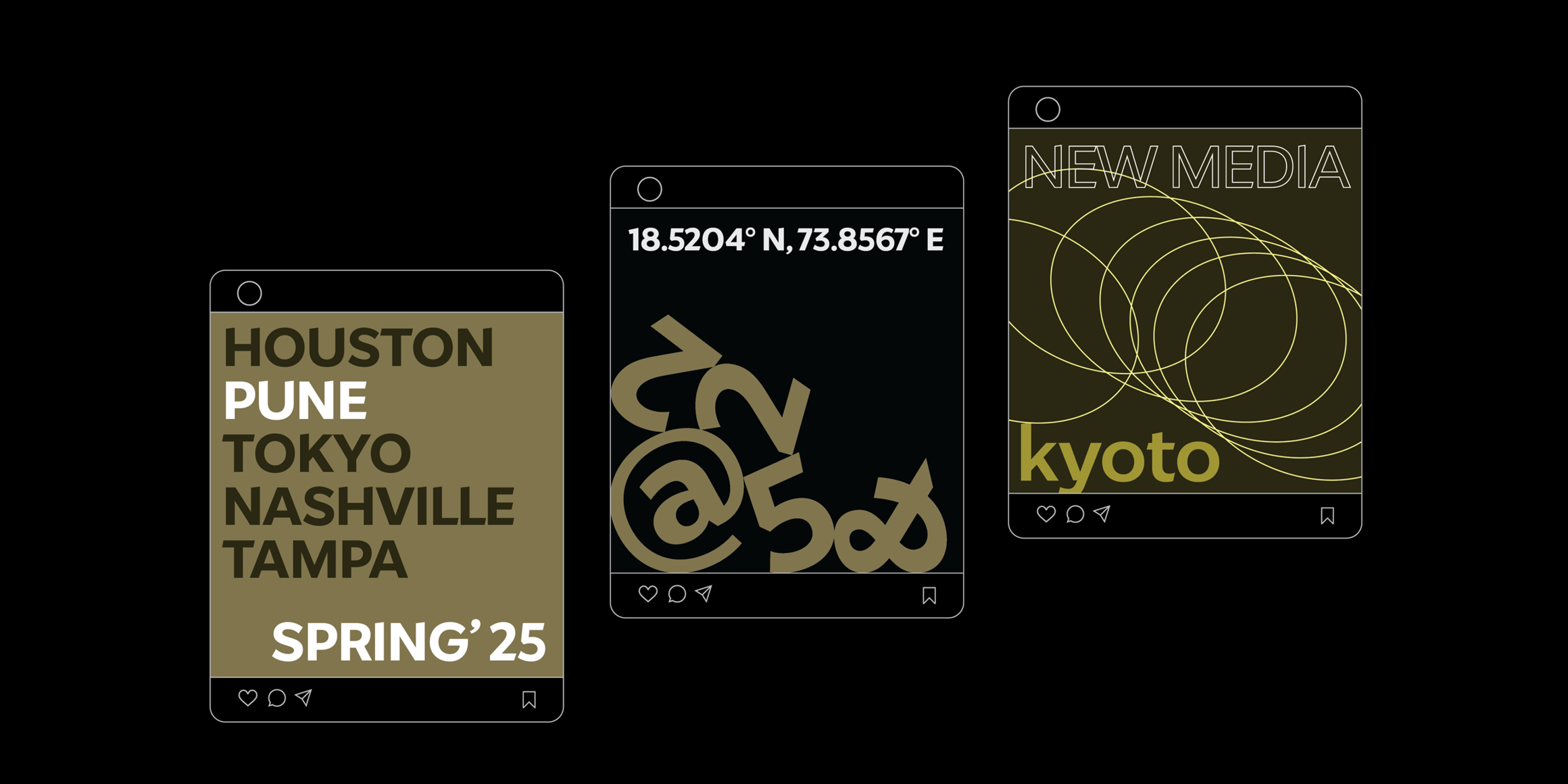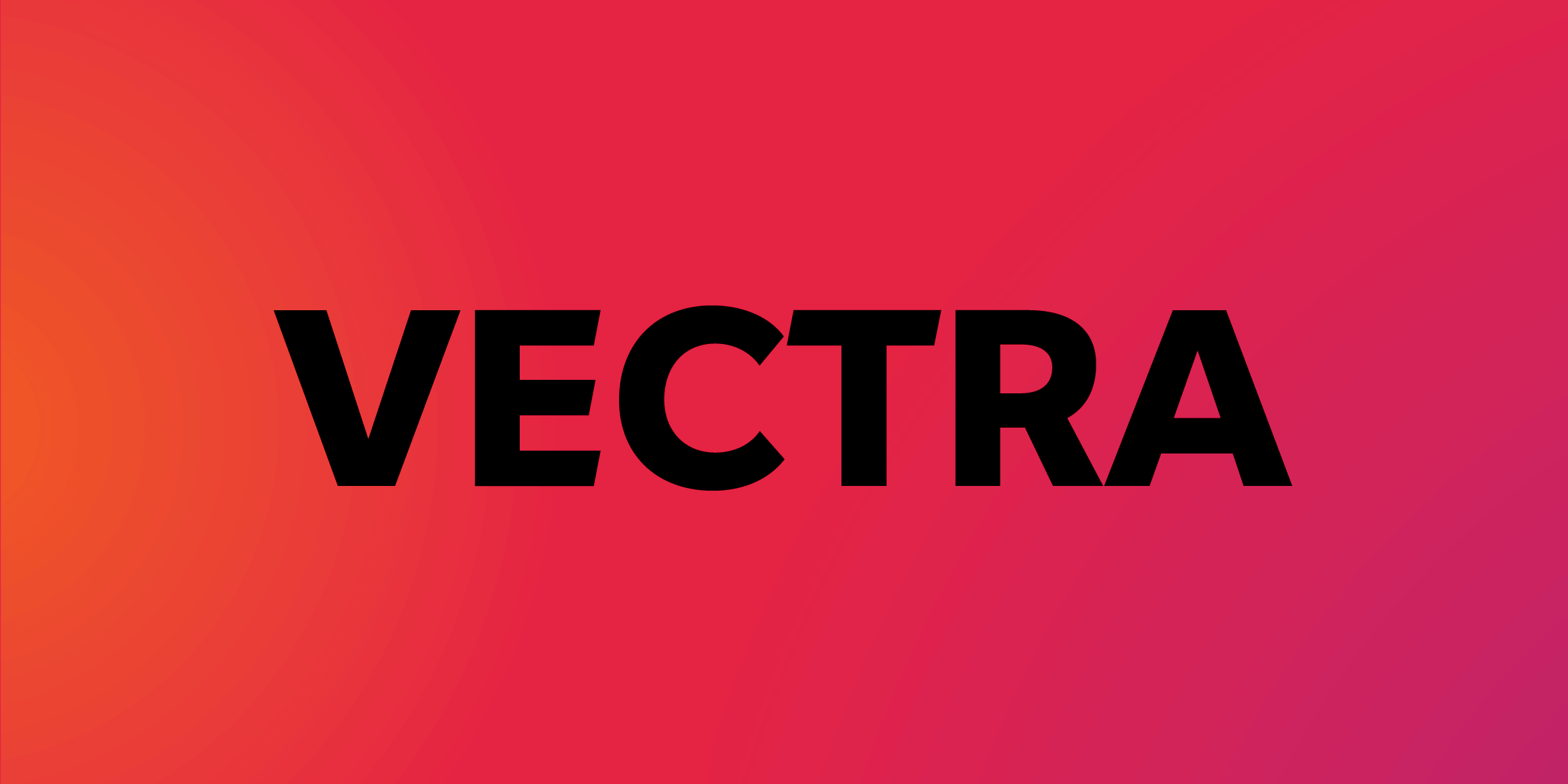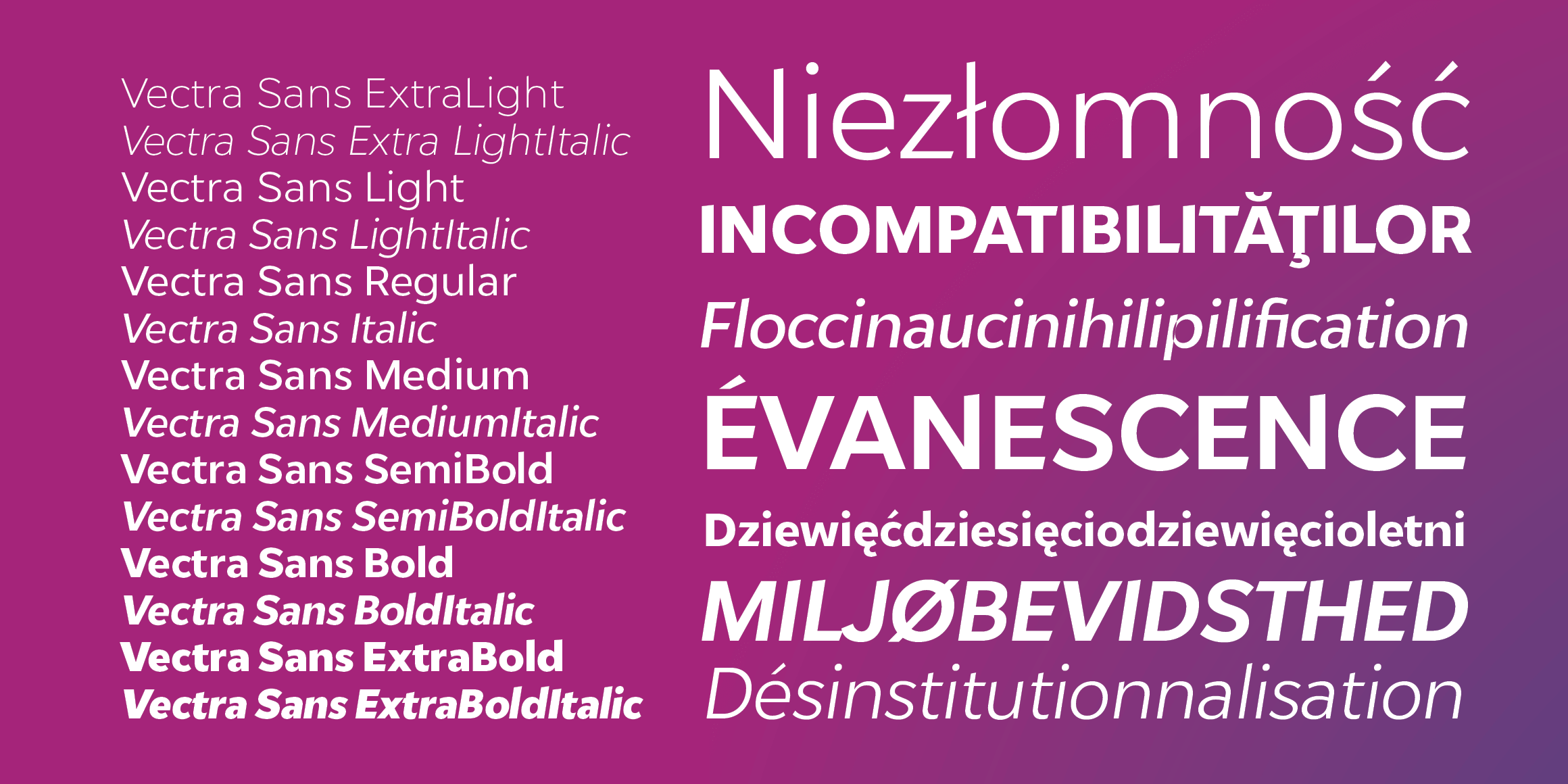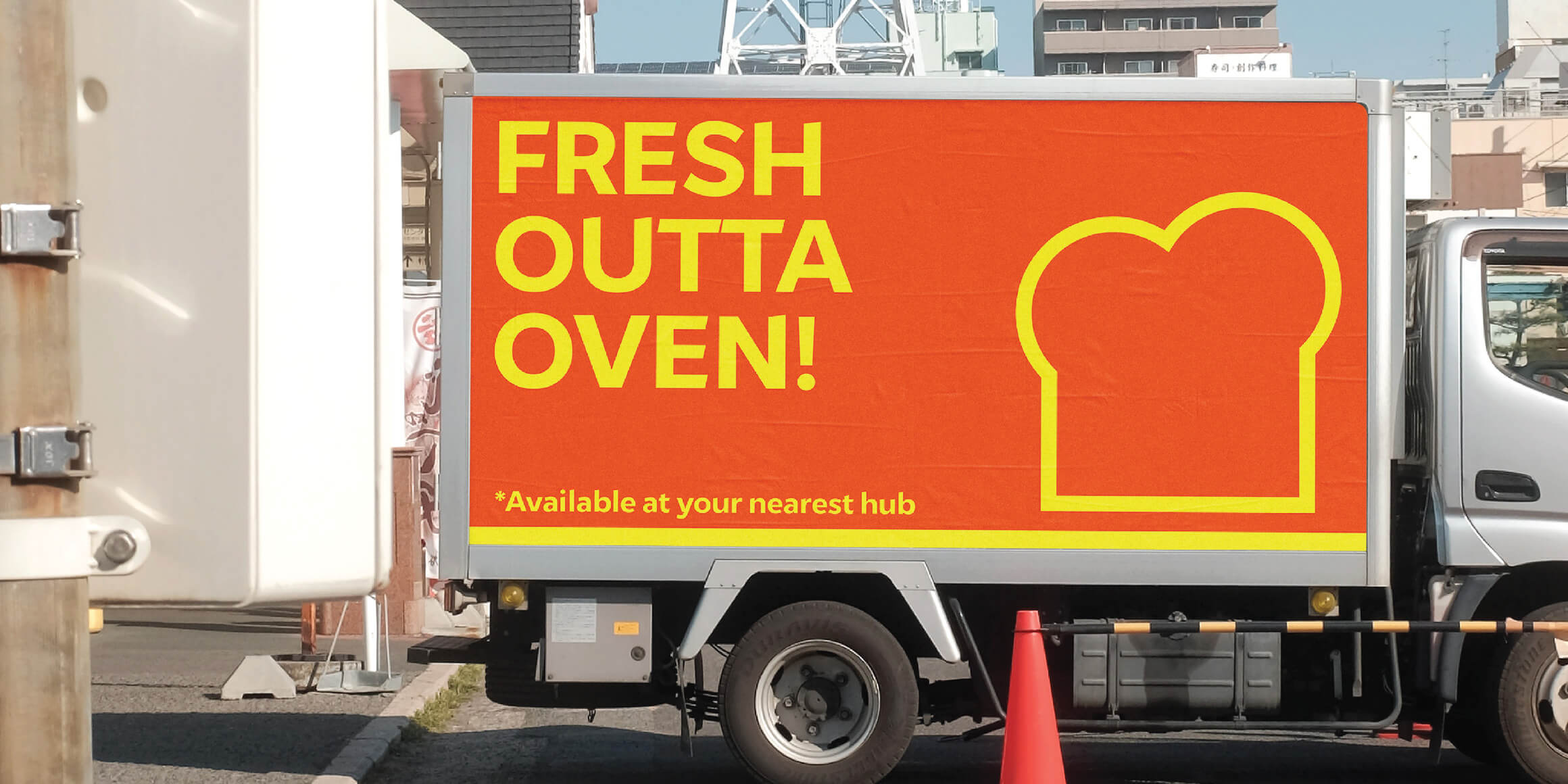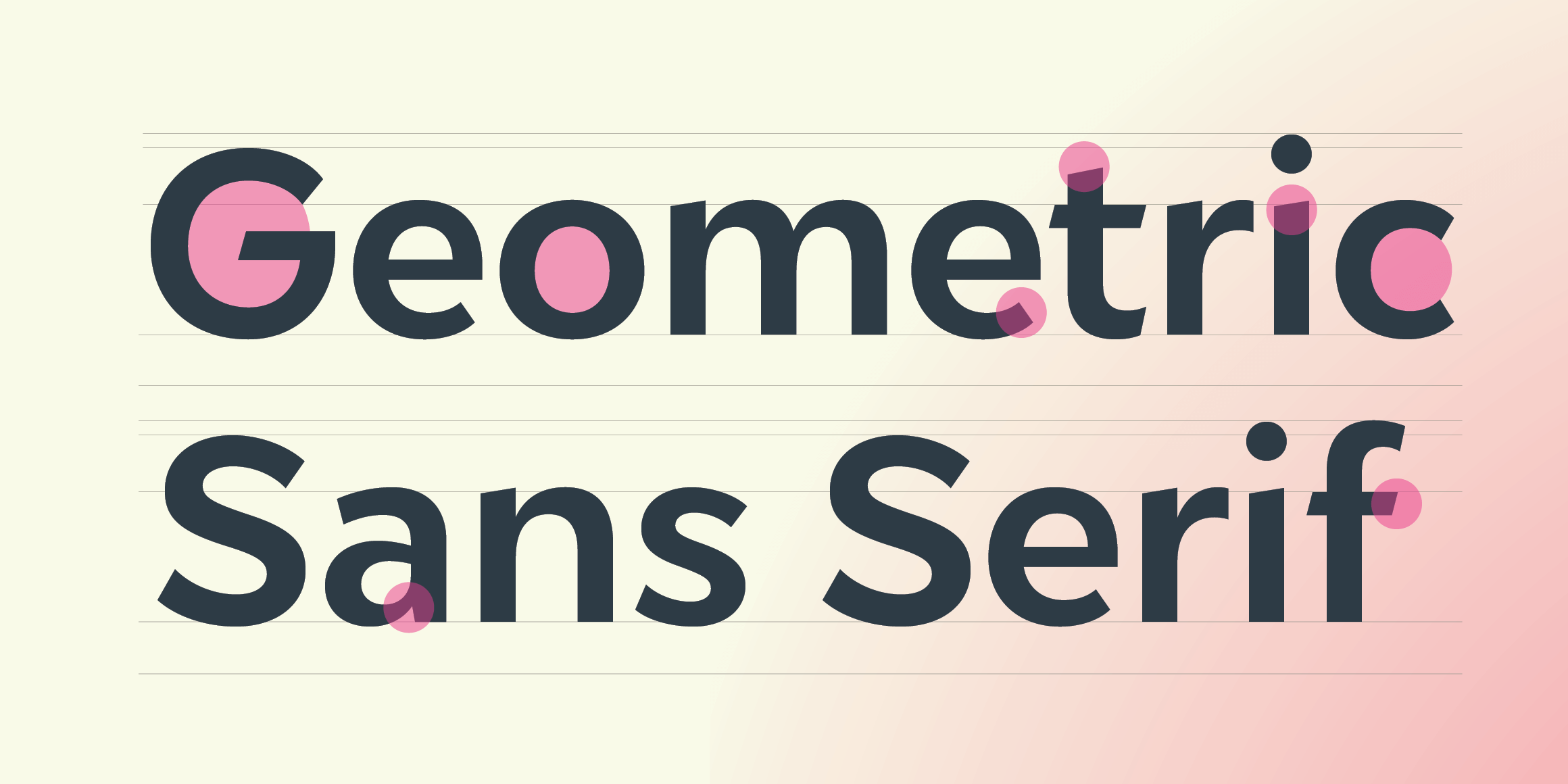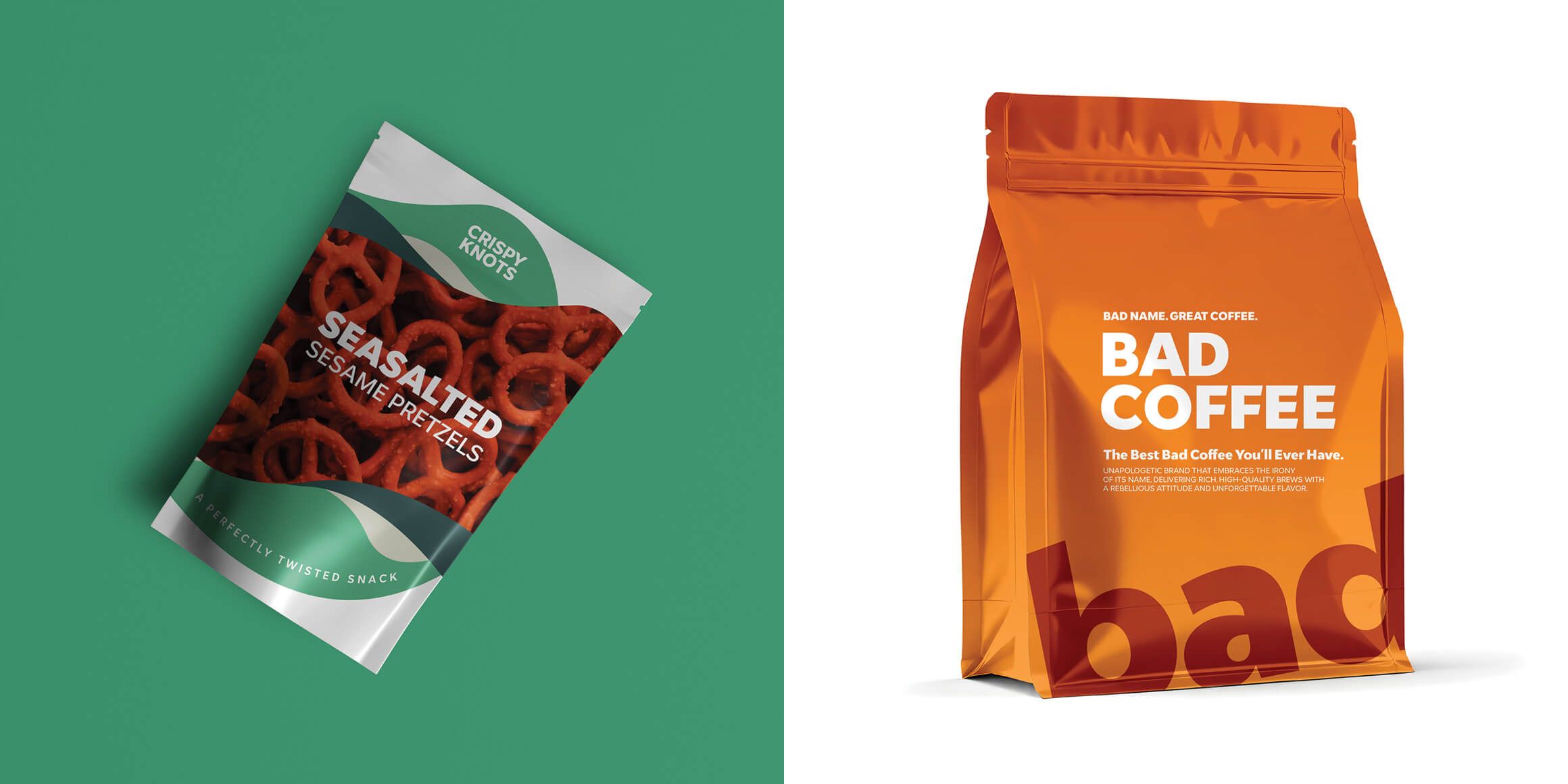
Vectra Sans
Vectra Sans emerges from the inquiry: 'Is there room for another Geometric Sans?' It sets itself apart by tweaking the stroke endings, making the font more dynamic and less rigid while adhering to geometric principles. In the crowded world of Geometric Sans typefaces, Vectra Sans brings a fresh and dynamic touch.